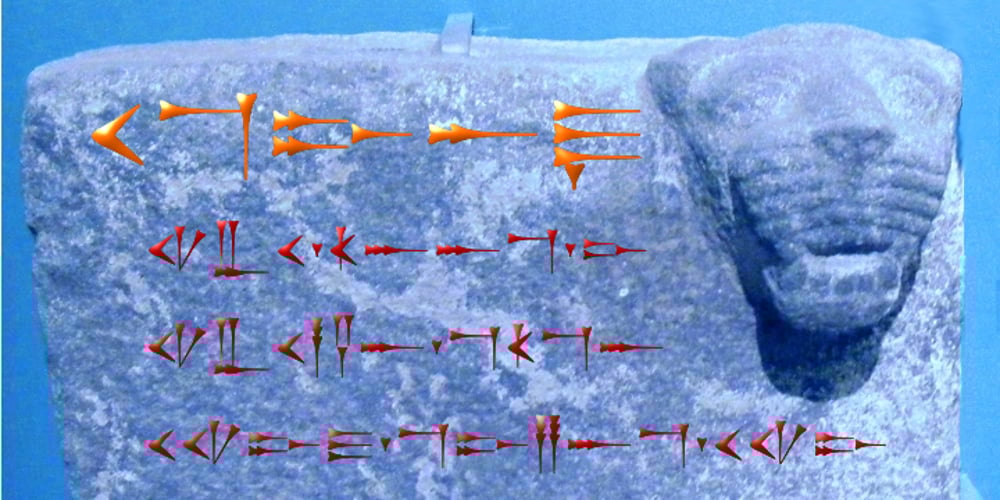
Ammurapi
Ammurapi font
Ammurapi Font Family was designed by published by Proportional Lime. Ammurapi contains 1 styles and family package options. Ammurapi was the last king of Ugarit, which was destroyed circa 1200 B.C. Back then all writing was done by hand and all that has been preserved is on clay tablets many of which were fired in the very destruction of the cities that enabled these documents to withstand the rvages of time. Ugarit unlike the other cuneiform scripts has a very limited number of glyphs. It is somehow exotically attractive. This font has been encoded in the appropriate unicode block to permit ease of use for scholarly purposes, but would also make a fine use as a decorative element.